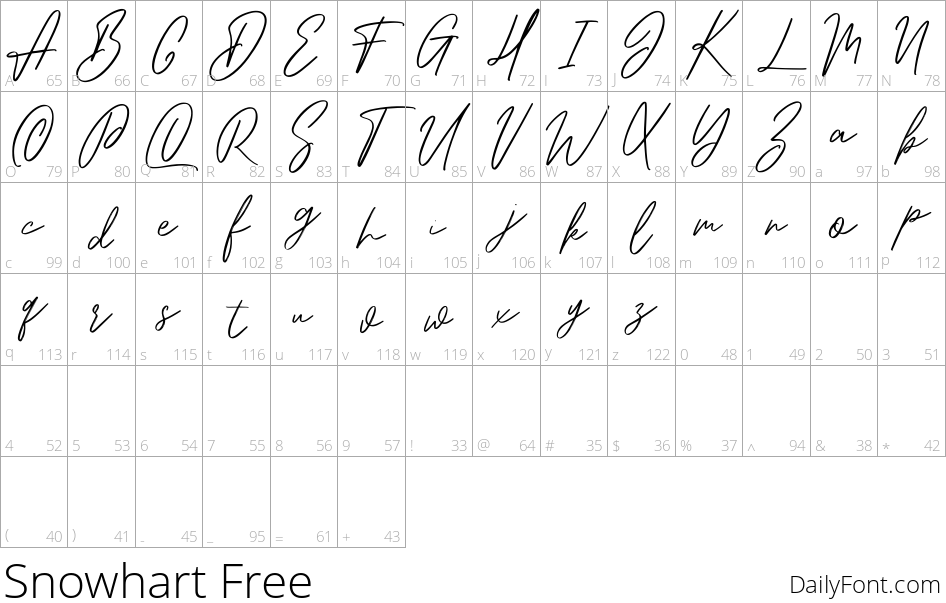
Snowhart
Snowhart, created by Maulana Creative, is an enchanting script font that effortlessly blends elegance with a touch of playful flair. Characterized by its flowing, hand-drawn appearance, this font exudes a sense of charm and sophistication, making it ideal for a variety of creative projects ranging from wedding invitations to branding materials.
Each letter in the Snowhart alphabet maintains a consistent, delicate stroke, showcasing fluid curves and graceful loops that give the text an organic, natural feel. The capitals are especially striking, with ornate flourishes that enhance their visual appeal, making your titles or headings stand out with a refined yet approachable style. The lowercase letters complement these capitals perfectly, maintaining readability while adding to the overall cohesive look of the typeface.
What sets Snowhart apart is its versatility and the emotional tone it brings to any text. The font has a whimsical quality that lends itself well to conveying warmth and personality, without sacrificing clarity. This makes it a fantastic choice for personal and professional work alike, ensuring that your message is both attractive and intelligible.
In terms of technical specifications, Snowhart includes a full set of characters including numerals, punctuation, and special symbols, ensuring comprehensive usability across different contexts and applications. The design of these elements remains true to the font's overall aesthetic, providing a uniform and polished appearance whether used digitally or in print.
In essence, Snowhart by Maulana Creative is more than just a script font; it's a tool for bringing elegance, charm, and a human touch to your projects, effortlessly enhancing their visual impact.